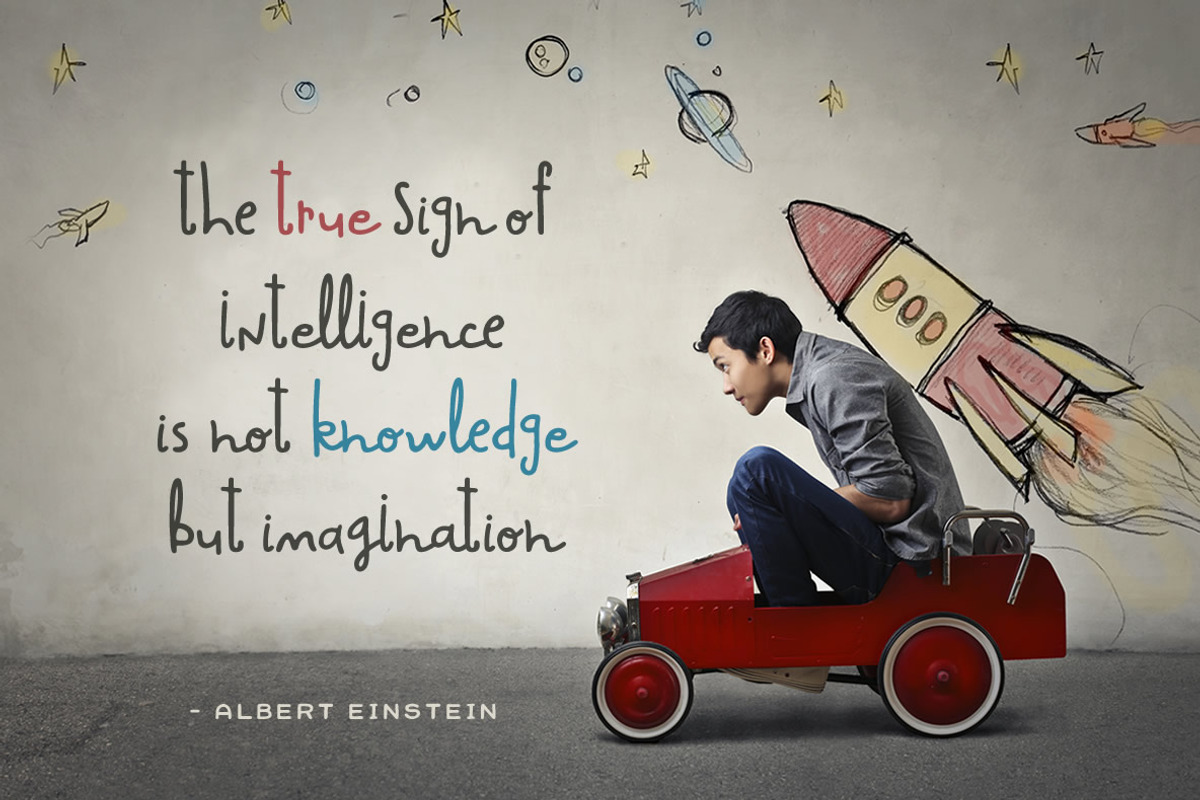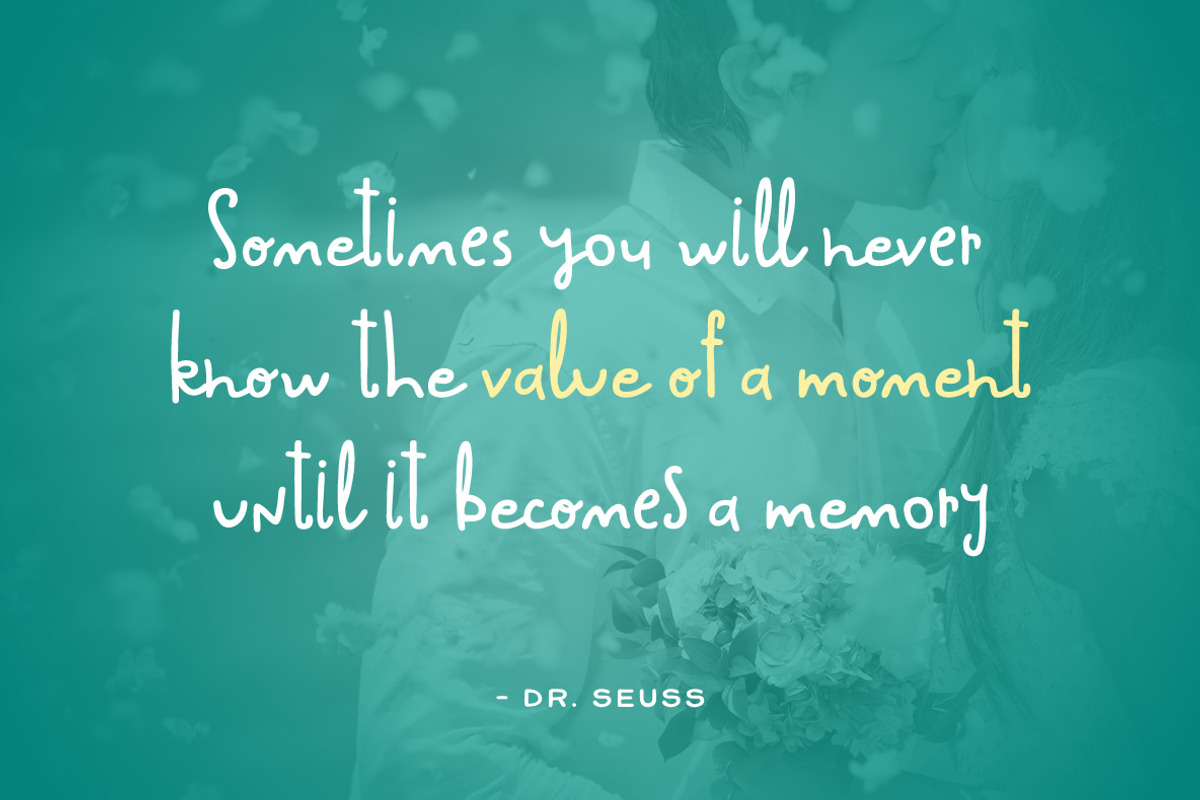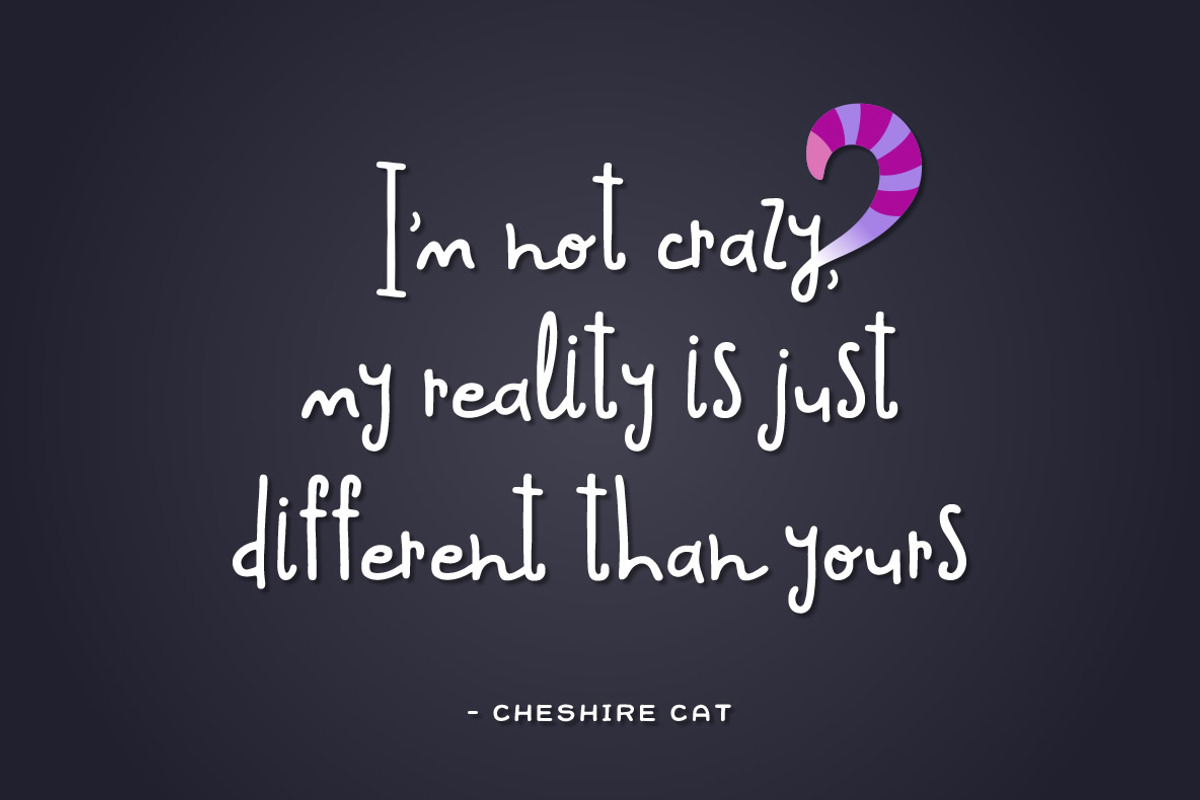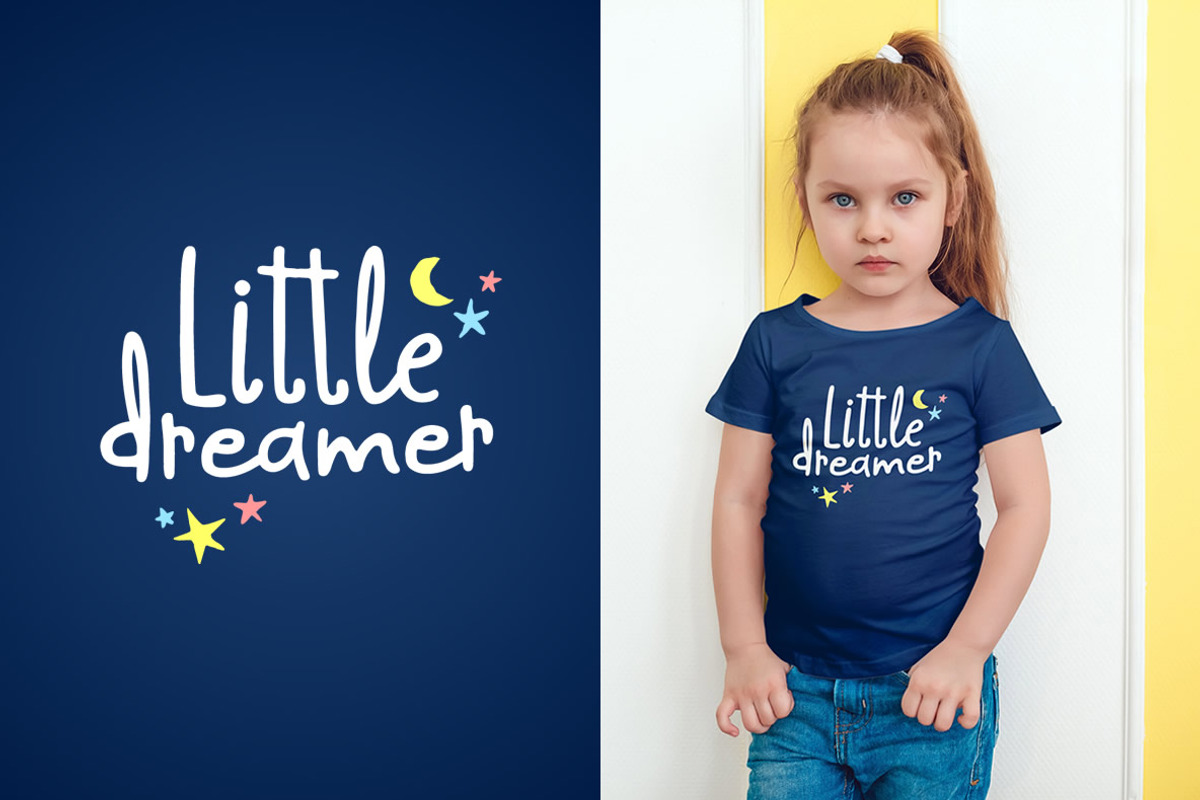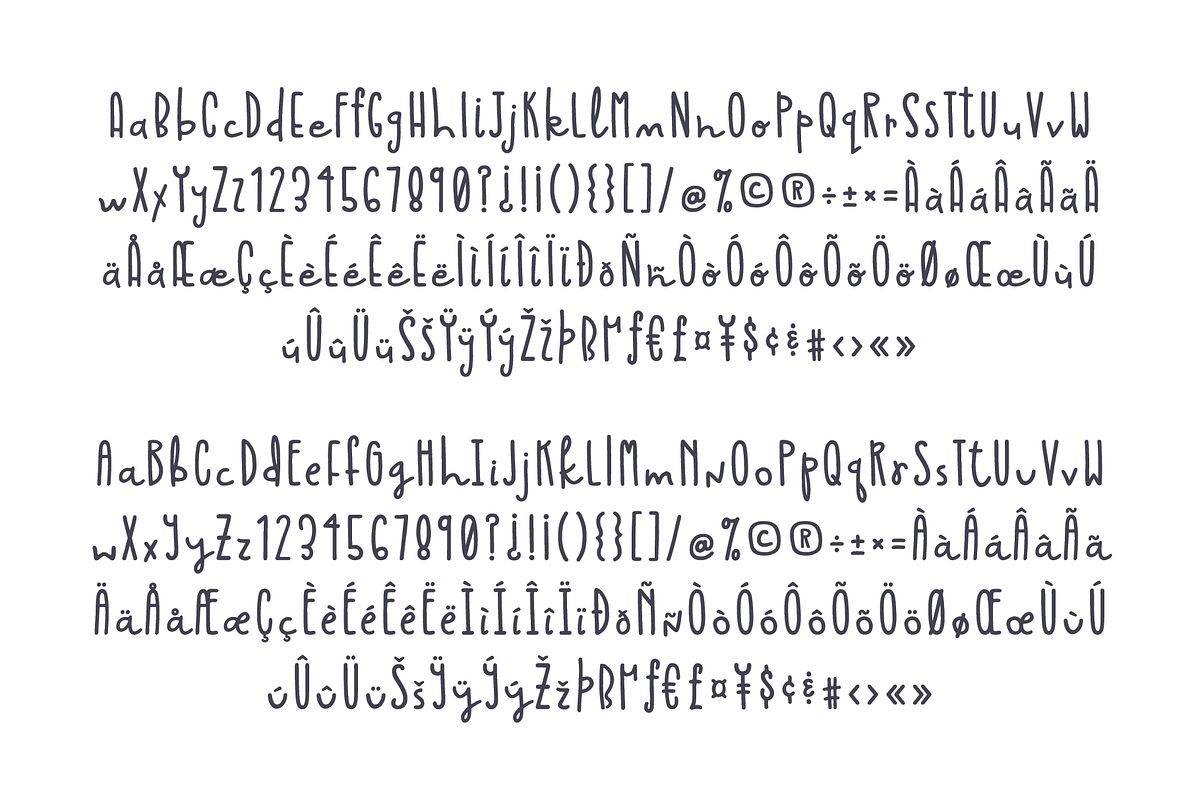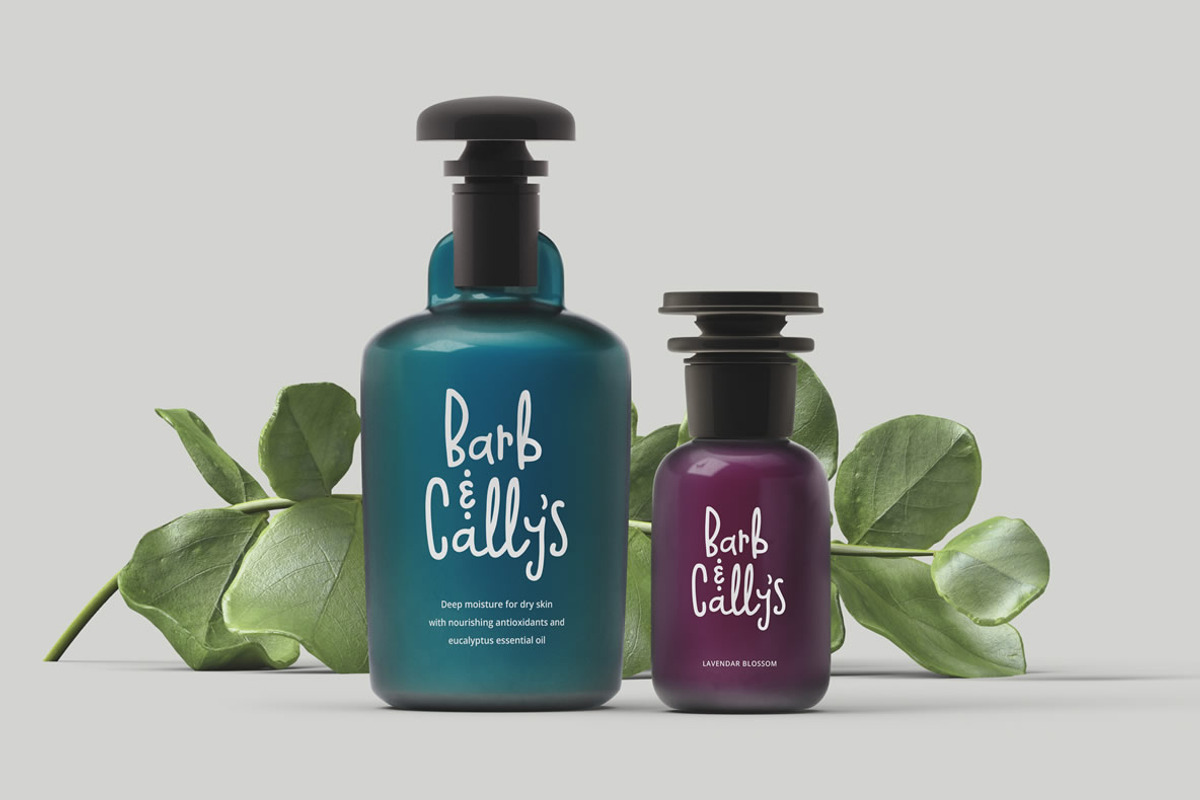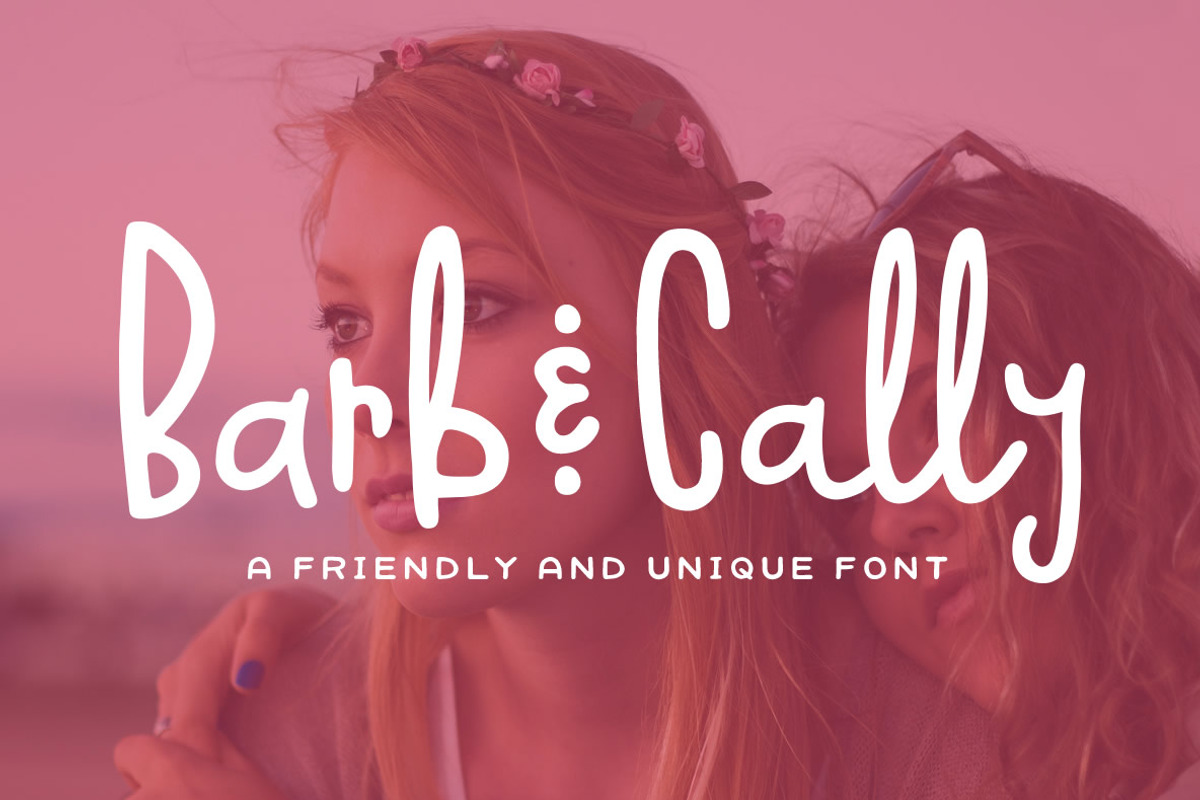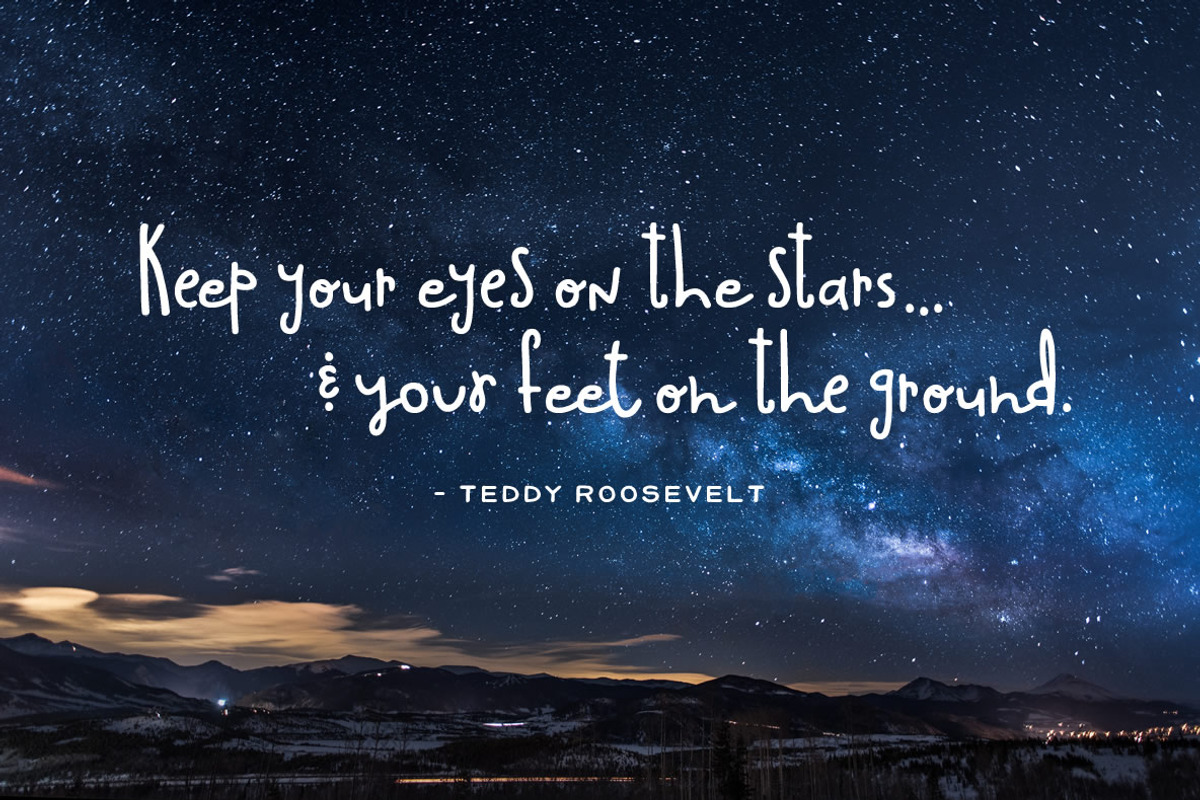
Barb & Cally Font
Barb & Cally are like two peas in a pod. Always working together, helping each other out. This friendly and unique font will make any design stand out. Simple and casual, Barb & Cally can bring a fun and youthful style to your next project.